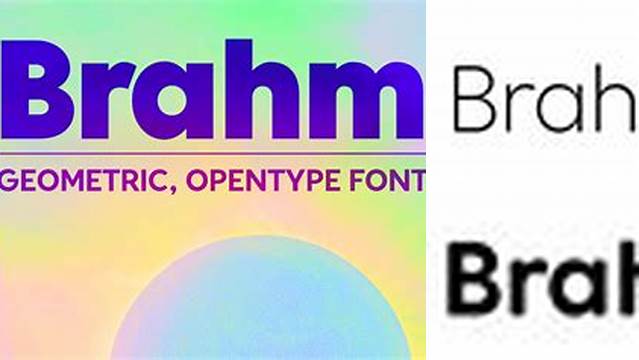
Brahma Rounded Light Font: Free Download & Usage Guide
Hey there, font enthusiasts! Today, we're diving deep into the world of the Brahma Rounded Light font. If you're on the hunt for a typeface that's both elegant and incredibly versatile, you've come to the right place. This font has been making waves in the design community for its clean lines, friendly curves, and that touch of sophistication that can elevate any project. We'll be exploring exactly where you can snag a free download of this gem, how to use it effectively, and why it's become such a go-to for designers everywhere. So, buckle up, guys, because we're about to unlock the full potential of Brahma Rounded Light!
Understanding the Appeal of Brahma Rounded Light
The Brahma Rounded Light font is a true standout in the crowded world of digital typography. Its primary appeal lies in its unique blend of minimalism and warmth. Unlike many stark, geometric sans-serifs, Brahma Rounded Light incorporates subtle, rounded terminals that give it an approachable and soft character. This makes it incredibly legible, whether it's splashed across a large billboard or nestled in the fine print of a website. The 'Light' weight, in particular, offers an airy and delicate feel, perfect for projects that need a touch of elegance without being overpowering. Designers often choose this font for branding, editorial design, and user interfaces because it strikes that sweet spot between modern and friendly. It doesn't scream for attention, but rather, it invites the viewer in with its subtle charm. The clarity of its forms ensures that your message comes across loud and clear, while the rounded edges prevent any harshness, creating a visually pleasing experience. Think of it as the font equivalent of a perfectly brewed cup of coffee β comforting, refined, and just right. Its versatility means you can pair it with more robust fonts for contrast, or let it shine on its own in a minimalist design. This adaptability is a key reason why designers keep coming back to it, making it an invaluable asset in any digital toolkit.
Exploring Different Weights and Styles of Brahma Rounded
While we're focusing on the Brahma Rounded Light free download, it's worth noting that the Brahma family often comes with a range of weights and styles. This is super important for creating a cohesive visual hierarchy in your designs. Typically, you might find variations like Thin, ExtraLight, Light, Regular, Medium, SemiBold, Bold, and Black, along with potential italic versions. The 'Light' version, as we've discussed, is perfect for elegant headlines, subheadings, or body text where a delicate touch is desired. If you need something with more impact for a main title or a call-to-action button, you'd likely opt for the Bold or Black weights. The Regular or Medium weights are generally excellent for longer blocks of body text, offering superb readability. Having access to this spectrum of weights allows you to create sophisticated typographic systems within a single font family. You can use the light for secondary information, the regular for the main content, and a bold weight for emphasis, all while maintaining a consistent aesthetic. This range is what makes a font family like Brahma so powerful. It's not just about one beautiful style; it's about a complete toolkit that supports the entire narrative of your design. When you download Brahma Rounded Light, explore if the source also offers other weights β it can save you a lot of time and ensure a unified look across all your creative endeavors. The ability to switch between weights seamlessly is crucial for effective communication and design appeal, allowing for subtle shifts in tone and importance throughout your content.
Utilizing Brahma Rounded Light for Web Design
When it comes to web design, Brahma Rounded Light free download assets can be a game-changer. Its clean, rounded aesthetic lends itself beautifully to the digital space. On websites, legibility is king, and Brahma Rounded Light excels here. The 'Light' weight can be used for elegant, minimalist headers or subtle navigation elements. For body text, while the Light weight can work for shorter paragraphs or captions, you might find the Regular or Medium weights offer better readability for extended reading sessions, especially on lower-resolution screens. However, the overall friendly and modern vibe of the font makes it a great choice for UI elements, buttons, and promotional banners. Its rounded nature can contribute to a more approachable and user-friendly interface design. When implementing it on your website, ensure you're using properly optimized font files (like WOFF or WOFF2 formats) for faster loading times. Tools like Google Fonts make this incredibly easy, as they handle optimization and delivery. Consider pairing Brahma Rounded Light with a more robust font for contrast in your headlines or calls to action. For instance, a clean sans-serif in a bolder weight could complement the lightness of Brahma Rounded Light beautifully. The key is to leverage its gentle curves to create a welcoming and modern online presence. Its smooth appearance can make interactive elements feel more intuitive and less jarring, enhancing the overall user experience. Remember, the goal is to make your website not only look good but also feel good to use, and Brahma Rounded Light can certainly help you achieve that.
Perfect Pairing: Fonts That Complement Brahma Rounded Light
Choosing the right font pairings is crucial for creating visually appealing and effective designs, guys. When working with Brahma Rounded Light free download, you'll want to select complementary typefaces that enhance its charm without competing. Given its clean, friendly, and somewhat modern aesthetic, Brahma Rounded Light pairs well with a variety of styles. For a classic and sophisticated contrast, consider pairing it with a serif font that has some character, like Playfair Display or Lora. The contrast between the rounded sans-serif and the elegant serif can create a beautiful typographic hierarchy. If you're aiming for a more contemporary and minimalist look, another clean sans-serif font could work, but choose one with distinct characteristics. Perhaps a more geometric sans-serif like Montserrat or Lato, used in a bolder weight, could provide a nice counterpoint to Brahma's softness. For a bolder, more industrial feel, a slab serif like Roboto Slab could be an interesting choice. The key is to create balance. If Brahma Rounded Light is used for headlines, a highly readable sans-serif or serif for the body text is essential. Conversely, if it's used for body text due to its legibility, a more distinctive display font could be used sparingly for titles. Always test your pairings at different sizes and in context to ensure they work harmoniously. The goal is to create a dialogue between the fonts, where each complements the other, guiding the reader's eye and reinforcing the message of your design. Remember, a good pairing elevates the entire composition, making it more professional and engaging for your audience.
Branding Applications with Brahma Rounded Light
When it comes to building a brand identity, the choice of typeface speaks volumes. Brahma Rounded Light free download offers a fantastic starting point for brands looking to project an image of approachability, modernity, and clean professionalism. Its gentle curves and light weight make it particularly suitable for businesses in sectors like wellness, tech startups, creative agencies, or lifestyle brands. Imagine a wellness app using Brahma Rounded Light for its headings β it immediately conveys a sense of calm and user-friendliness. A tech company might use it for its UI elements, making the user experience feel intuitive and sleek. In logo design, Brahma Rounded Light can be used directly or as inspiration for custom lettering. Its balanced proportions and friendly nature can help a brand logo feel welcoming and trustworthy. For marketing collateral, like brochures, websites, and social media graphics, this font ensures consistency and readability. You can use the 'Light' weight for elegant titles and perhaps a slightly heavier weight (like Regular or Medium) for body copy, creating a clear typographic hierarchy thatβs easy on the eyes. The key is to leverage its inherent qualities β its softness, its clarity, its modern feel β to align with your brand's core message. Ensure the font licensing allows for commercial use if you plan to use it extensively in your branding efforts. A well-chosen font like Brahma Rounded Light can significantly impact how your brand is perceived, helping you connect with your target audience on a more personal and aesthetic level, establishing a memorable and positive brand association.
Mastering Readability: Brahma Rounded Light for Body Text
One of the most crucial aspects of any design, especially for longer pieces of content, is readability. Can your audience comfortably consume the information you're presenting? This is where the nuances of Brahma Rounded Light free download and its application for body text come into play. While the 'Light' weight itself might be a bit too delicate for extensive body copy on all screen types or print materials, especially at smaller sizes, it's not entirely out of the question. For digital platforms where font rendering can vary, using Brahma Rounded Light in its Light weight might be best suited for shorter paragraphs, captions, or descriptive text. However, if the Brahma family includes slightly heavier weights like Regular or Medium, these are typically your best bet for comfortable body text reading. These weights offer a better balance of stroke thickness and letterform clarity, ensuring that individual characters are distinct and words flow smoothly. When using Brahma Rounded Light for body copy, pay close attention to line height (leading), letter spacing (tracking), and line length. Generous line height prevents text from feeling cramped, while appropriate letter spacing aids in word recognition. Keeping line lengths to a reasonable measure (around 50-75 characters per line) significantly improves reading speed and comprehension. The rounded nature of Brahma Rounded Light generally aids readability by softening the overall impression of the text block, making it feel less dense and more inviting. Always test your body text implementation across different devices and browsers to confirm it meets your readability standards before going live. Ultimately, the goal is to make the reading experience seamless and enjoyable, and the right weight and careful typographic adjustments of Brahma Rounded Light can help achieve this.
Creative Typography with Brahma Rounded Light
Beyond its practical applications, Brahma Rounded Light free download also opens up a playground for creative typography. The unique rounded quality of this font allows for playful and visually engaging compositions. Think about using the 'Light' weight in large, expressive headlines where its airy quality can create a sense of elegance and spaciousness. You could experiment with text effects, like subtle gradients or outlines, that highlight the font's smooth curves. For instance, applying a soft, tonal gradient that follows the rounded edges can add depth and visual interest. Consider setting text to follow a path, creating interesting shapes and forms with the letters β the gentle curvature of Brahma Rounded Light is particularly well-suited for this. It can also be effective when layered with imagery; imagine placing light text over a softly blurred background image, allowing the typography to be the subtle hero. Another creative avenue is using color. Bright, playful colors can enhance the friendly nature of Brahma Rounded Light, while more muted tones can emphasize its sophistication. Don't be afraid to mix weights if available, perhaps using the Light for a main word and a bolder weight for emphasis within the same line, creating dynamic visual rhythm. It's all about exploring the personality of the font and pushing its boundaries. Remember, while creativity is encouraged, always ensure the legibility isn't compromised, especially if the text carries important information. Experimentation is key to discovering unique ways to make your designs pop using this versatile font.
Final Thoughts on Brahma Rounded Light Free Downloads
So there you have it, guys! We've explored the wonderful world of the Brahma Rounded Light free download, from its aesthetic appeal and where to find it legally, to its practical applications in web design, branding, editorial work, and beyond. This font truly offers a fantastic blend of modern sophistication and approachable warmth, making it a valuable asset for any designer's toolkit. Remember the importance of checking licensing, experimenting with different weights if available, and paying attention to typographic details like spacing and hierarchy to get the most out of it. Whether you're a seasoned pro or just starting out, incorporating Brahma Rounded Light into your projects can add that extra touch of polish and personality. So go ahead, find your free download from a reputable source, and start creating something amazing! Happy designing!